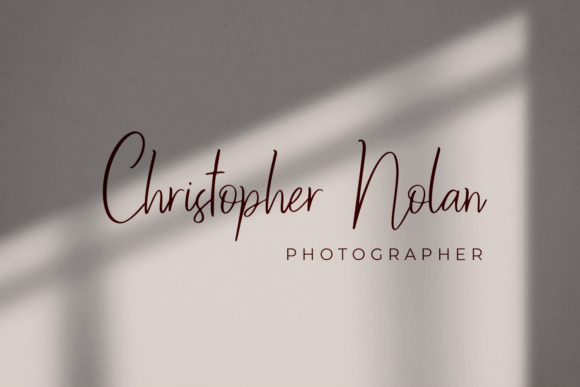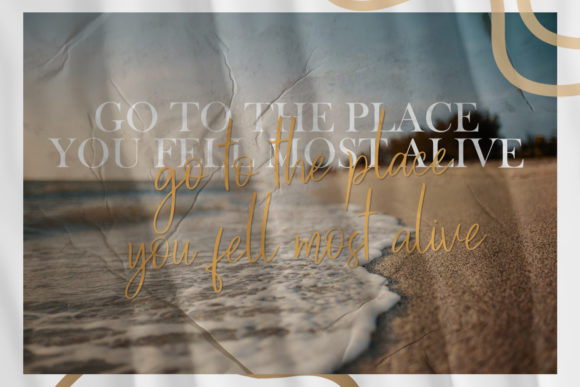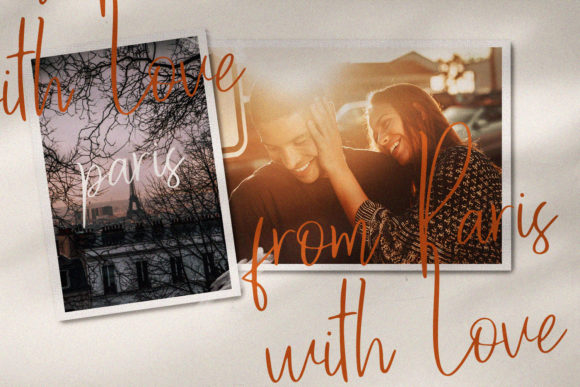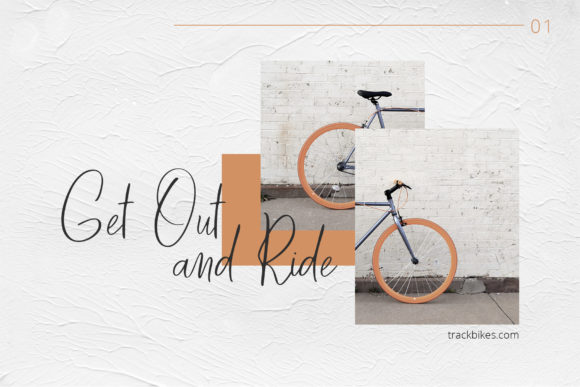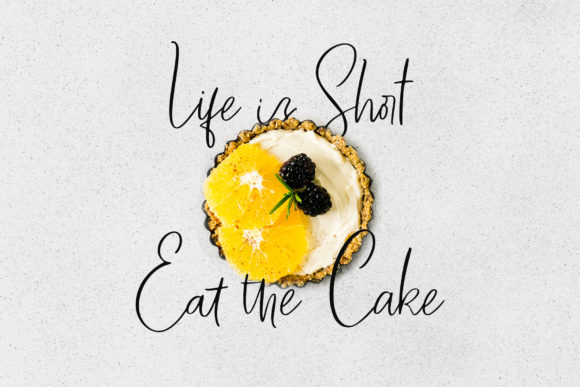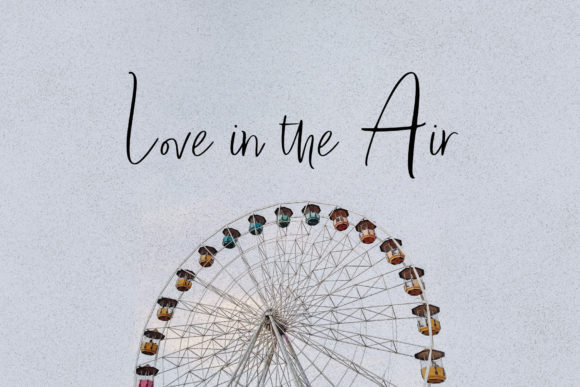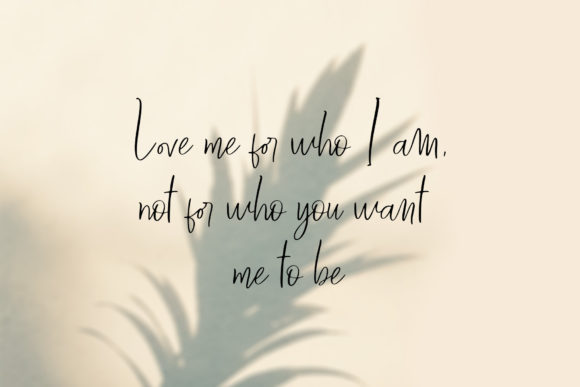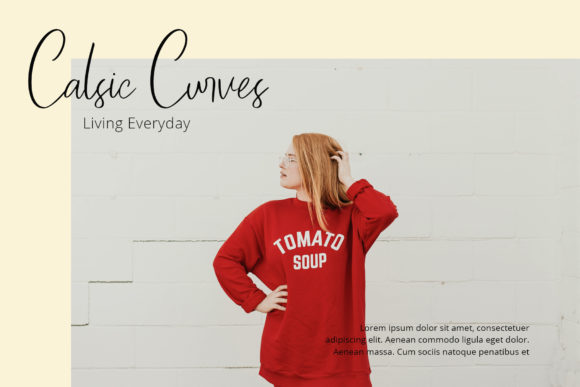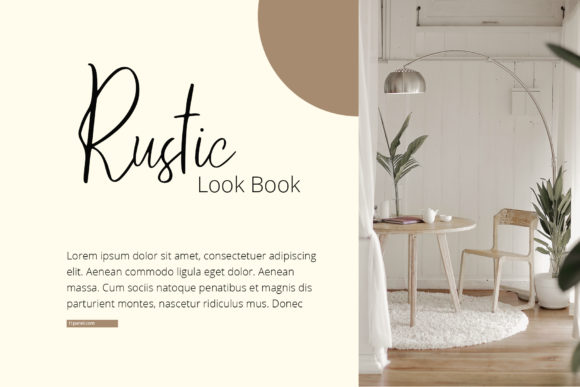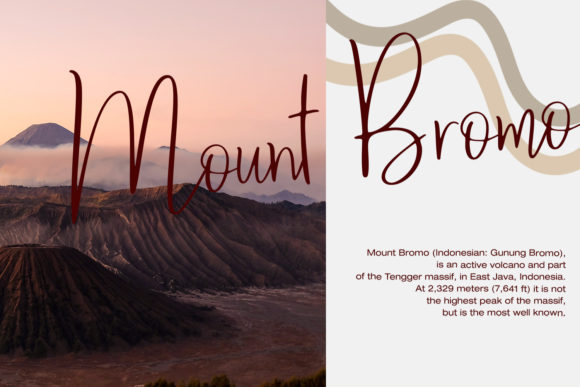
Bournoville Font
About Bournoville Font
Bournoville feels summery and light. This easygoing and down-to-earth script will effortlessly add a personal touch to any design idea!